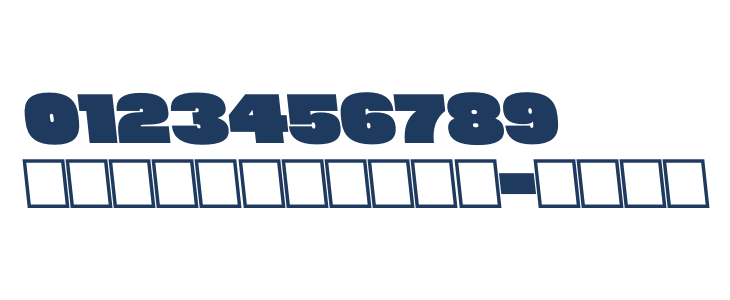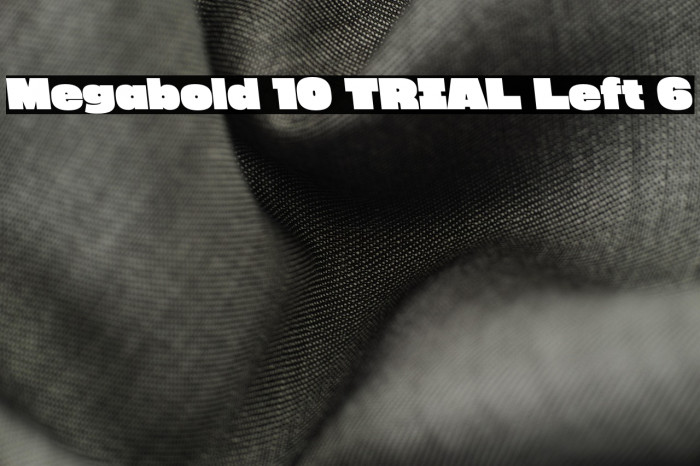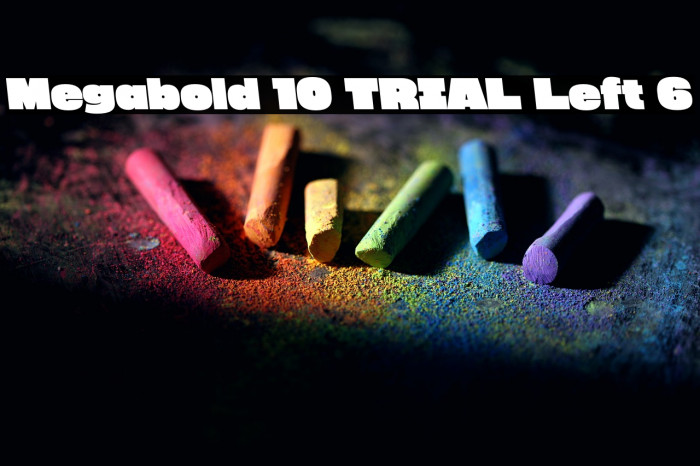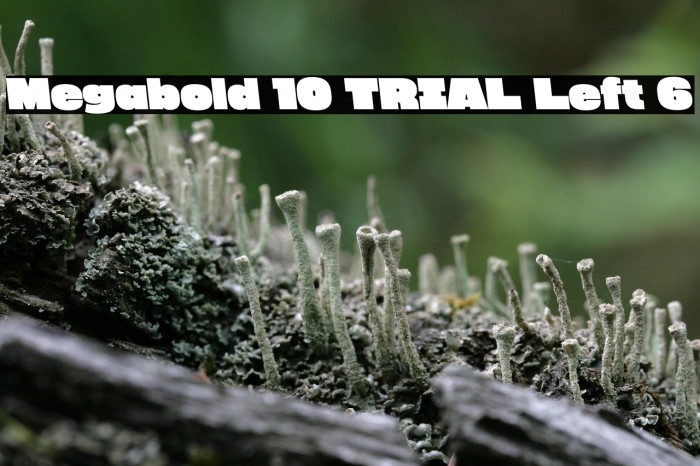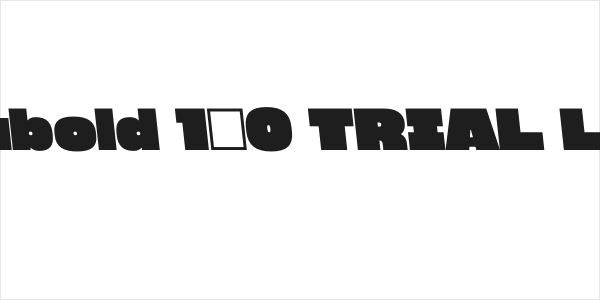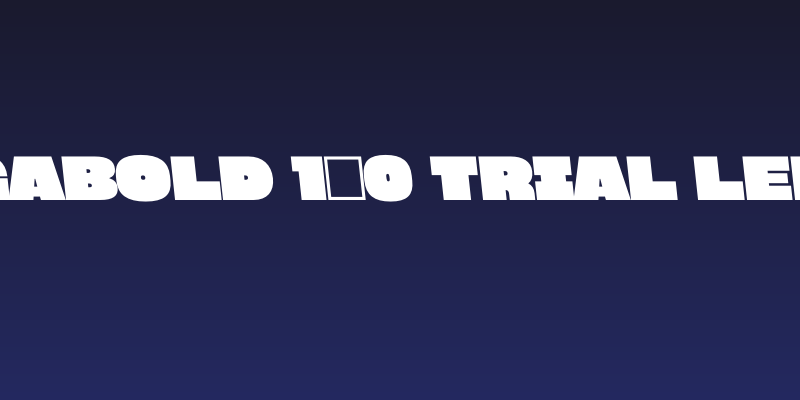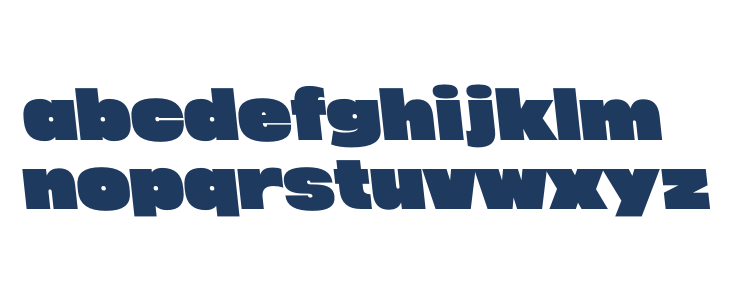
Megabold 1.0 TRIAL Left 6 Font
Megabold 1.0 TRIAL Left 6 Description
This font features a bold and impactful design with thick, blocky characters that convey a strong presence. The uppercase and lowercase letters maintain a consistent weight, creating a cohesive look across the alphabet. The numbers are equally bold, ensuring they stand out in any design. The special characters are designed with the same thickness, providing uniformity. This font is ideal for projects that require attention-grabbing text, such as headlines or posters. Its boldness makes it unsuitable for body text but perfect for making a statement.
| Proposed Projects | Posters, headlines, logos, advertisements, and any design requiring a strong visual impact. |